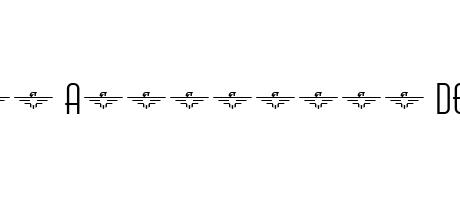
Air Americana
By Tiago Sá
Air Americana DEMO Bold: A bold, sans-serif typeface with a strong, confident presence. Its clean lines and slightly condensed letterforms evoke a sense of modern Americana, hinting at vintage signage but with a contemporary twist. The letters are solid and impactful, making it ideal for headlines and branding where a bold statement is needed.